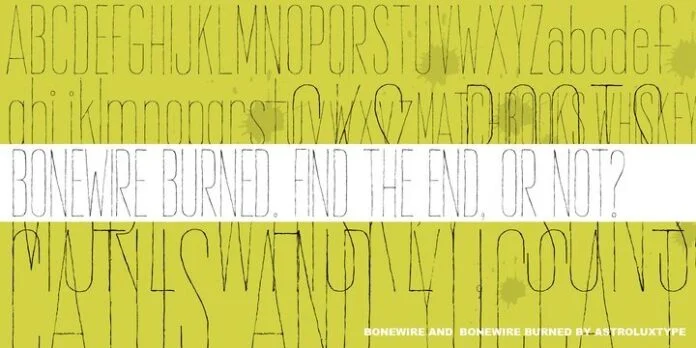
Bonewire Font Family is perfect for industrial branding projects, urban streetwear logos, gritty music album covers, underground event posters, edgy fashion campaigns, tattoo parlor signage, punk rock graphics, alternative lifestyle branding, raw artistic expressions, and rebellious marketing materials.
Bonewire Font Family is exciting because it embodies raw energy and underground culture through distinctive letterforms that convey rebellion, authenticity, and street credibility with uncompromising edge. This powerfully designed typeface combines industrial aesthetics with contemporary urban style, making it perfect for brands that want to communicate genuine rebellious spirit and alternative culture authenticity.
The Bonewire Font Family includes multiple weights with distressed textures, rough character variations, and industrial styling elements. The font features gritty design details, weathered letterforms, and authentic street-style characteristics that create a comprehensive typographic system for underground and alternative culture applications.
Bonewire Font Family Free Download provides designers with access to premium underground typography that brings authentic street credibility to contemporary design projects. This expertly crafted typeface has been developed to capture the raw energy and rebellious spirit of urban culture while ensuring readability and professional application standards. The font's edgy character and industrial aesthetics make it ideal for alternative brands and counter-culture movements.
The rebellious appeal of Bonewire Font Family makes it an invaluable tool for music labels, streetwear brands, and alternative lifestyle companies that need typography capable of communicating authenticity and underground credibility. The font's raw character helps establish immediate connections with audiences seeking genuine alternative experiences and non-conformist brand values.
Music venues, independent retailers, and alternative culture brands consistently choose Bonewire Font Family for its ability to convey authentic rebellion and underground sophistication through typography. The font excels in applications where establishing street credibility and alternative culture authority are essential to brand positioning, making it particularly effective for music industry, fashion, and entertainment brands targeting counter-culture audiences.
This font's comprehensive character set includes industrial-styled letterforms, gritty numerals, edgy punctuation marks, and specialized symbols that support authentic underground typography composition. The consistent rebellious styling maintains the street culture theme throughout all characters while ensuring professional readability across all alternative and urban design projects requiring Bonewire Font Family Free Download functionality.